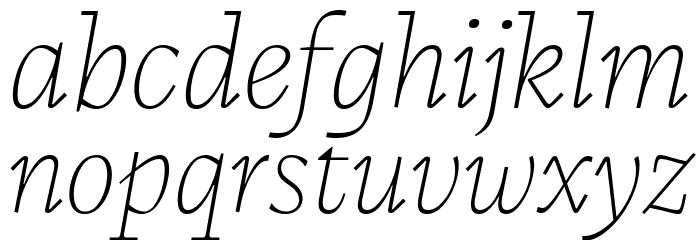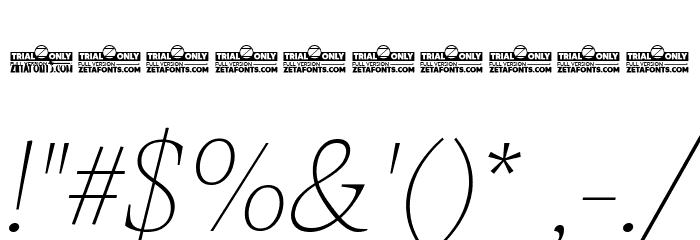
CalvinoTrial Thin Italic Font
This elegant typeface features a thin, italicized style that exudes sophistication and modernity. The letters are gracefully slanted, giving a sense of motion and fluidity. The font maintains a consistent thin stroke throughout, which adds to its delicate and refined appearance. The uppercase and lowercase letters are well-proportioned, with a slight emphasis on the ascenders and descenders, enhancing its elegant look. The numerals and special characters are designed to match the overall aesthetic, ensuring a cohesive appearance across all text elements.
A thin, italicized typeface with a modern and elegant style.
- Font: CalvinoTrial Thin Italic
- Proposed Projects: Ideal for high-end branding, fashion magazines, wedding invitations, and elegant product packaging.
- Category: Modern
- Weight: Light
- Overall Style: Elegant and sophisticated
- Use Case: Headlines, Logos, Invitations